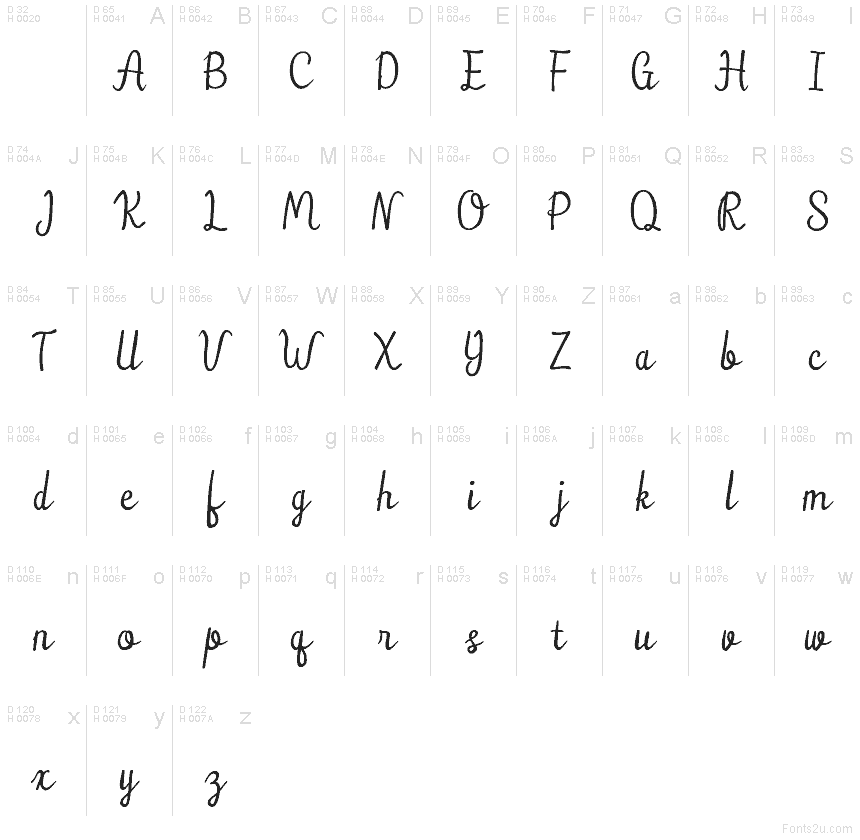
CS Royce Regular Demo
CS Royce font by Craft Supply Co. is a free medium monoline handwritten script font. It solves the classic script dilemma: warm personality without messy edges. Smooth, even strokes, softly rounded terminals, and a gentle bounce give it that freshly-penned look while keeping spacing consistent and easy to read. The swashy rhythm feels lively but controlled, with tidy joins that won’t fall apart at smaller sizes.
Using CS Royce, your boutique logos, wedding suites, social posts, packaging, product labels, and quote graphics gain a clean, human touch that still scans quickly. This free font shines on short headlines and names; keep tracking modest and pair it with a simple geometric sans for body copy to let the script’s airy curves do the charm work.